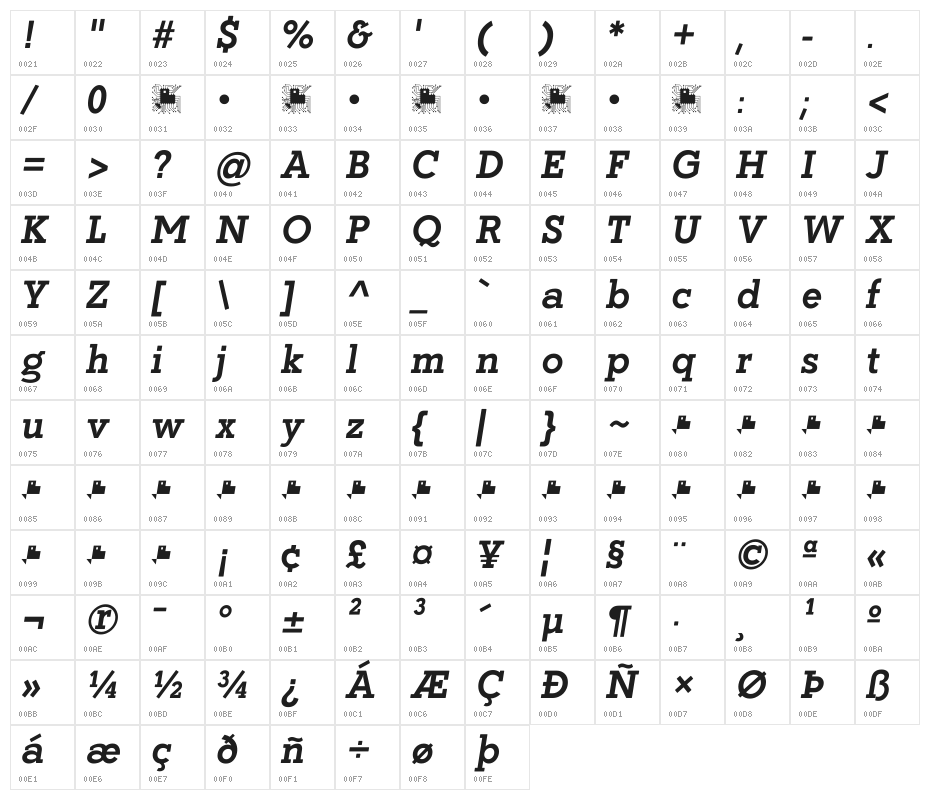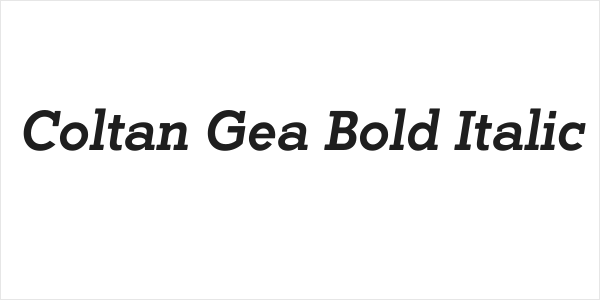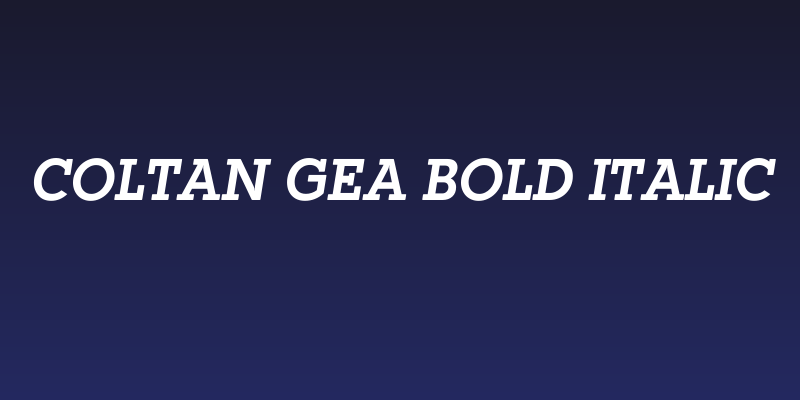
Coltan Gea Bold Italic Font
Coltan Gea Bold Italic Description
This font exhibits a bold and italicized style, characterized by strong, confident strokes and a slight slant that adds dynamism and emphasis. The uppercase letters are robust and commanding, while the lowercase letters maintain a consistent flow, enhancing readability. The numbers are clear and distinct, making them suitable for various applications. Special characters are well-defined, ensuring versatility in design projects. The font's overall appearance is modern yet timeless, making it a versatile choice for a wide range of uses.
| Proposed Projects | Ideal for headlines, branding, advertising, and editorial design where emphasis and readability are key. |